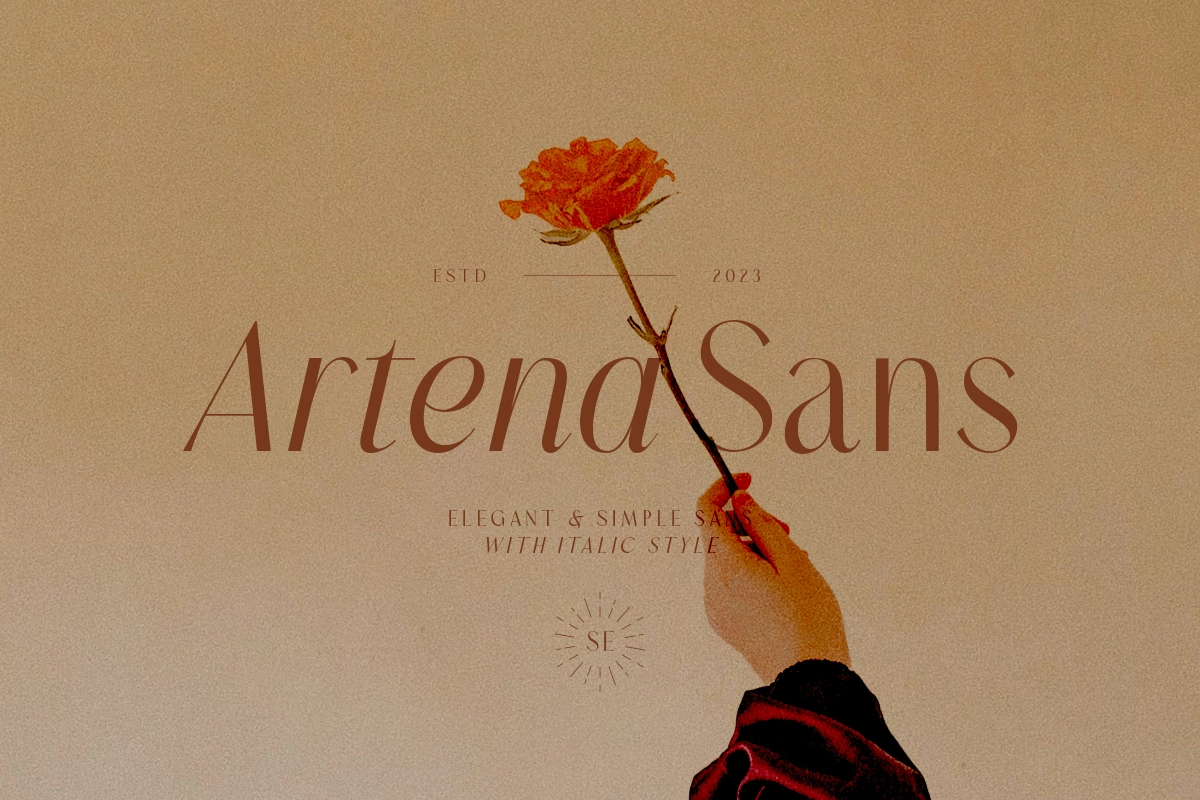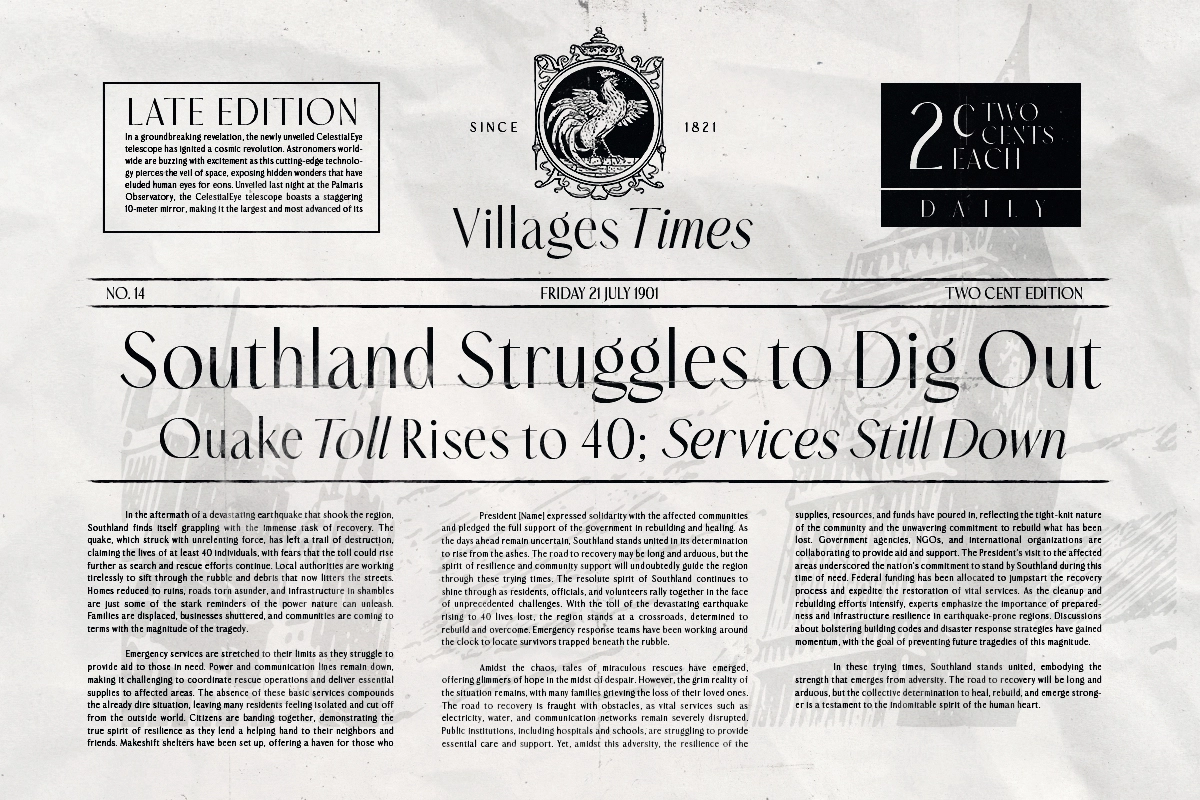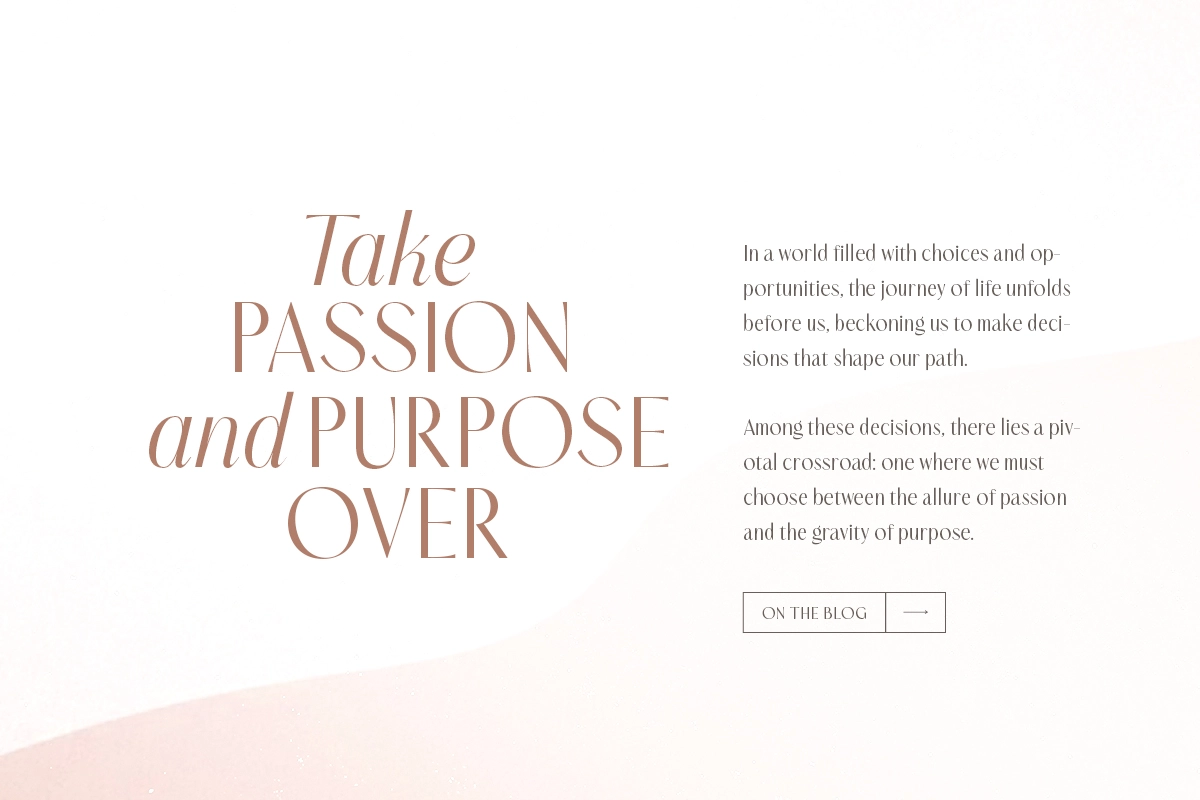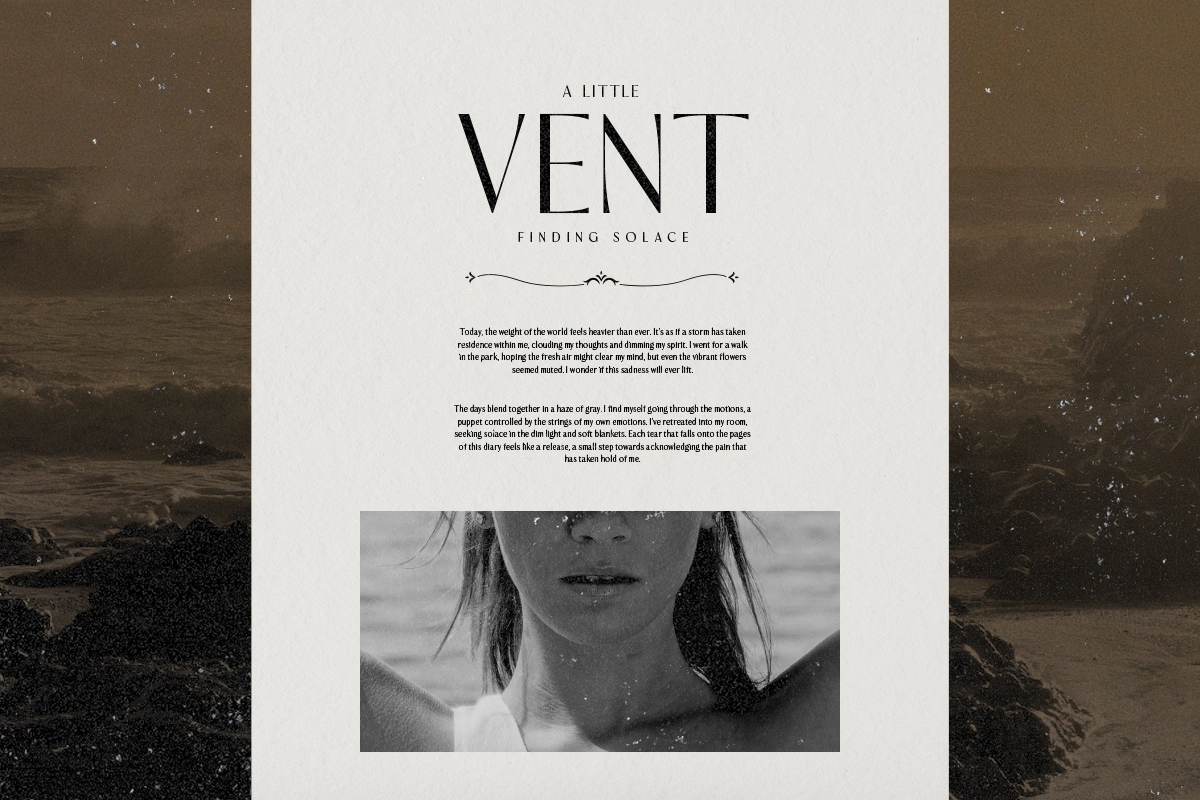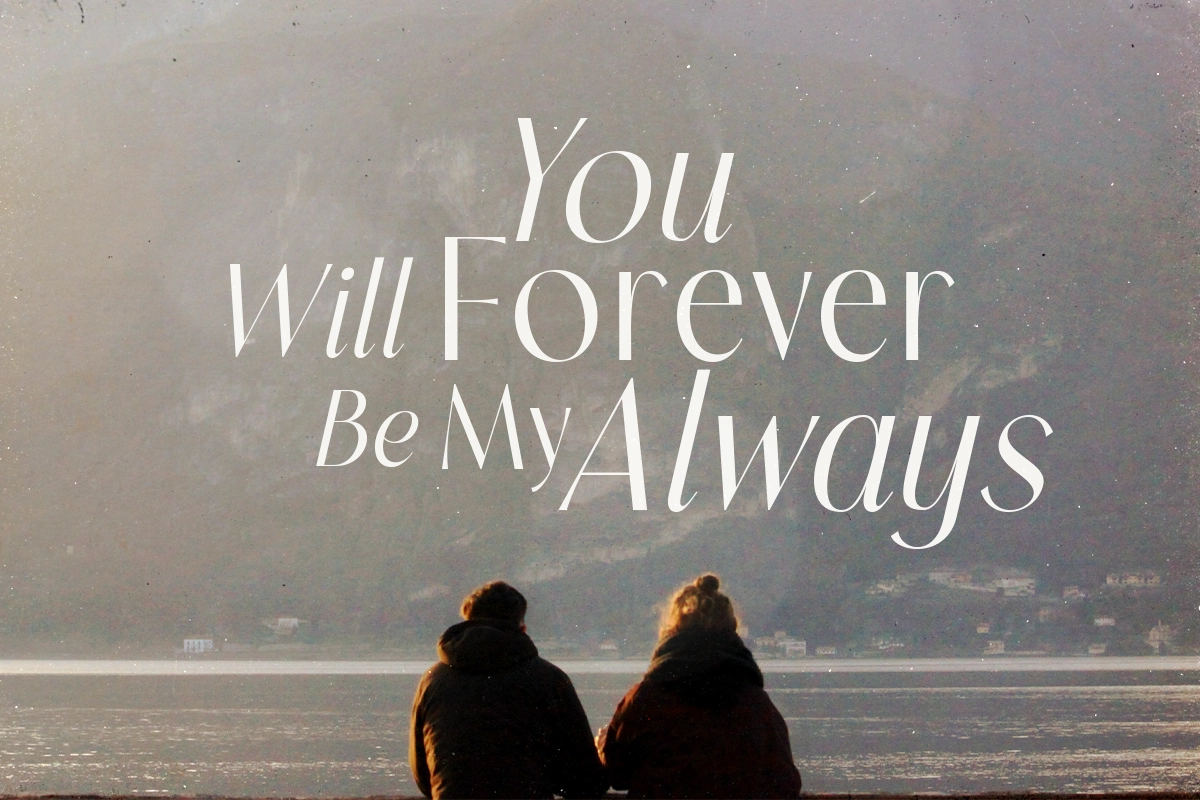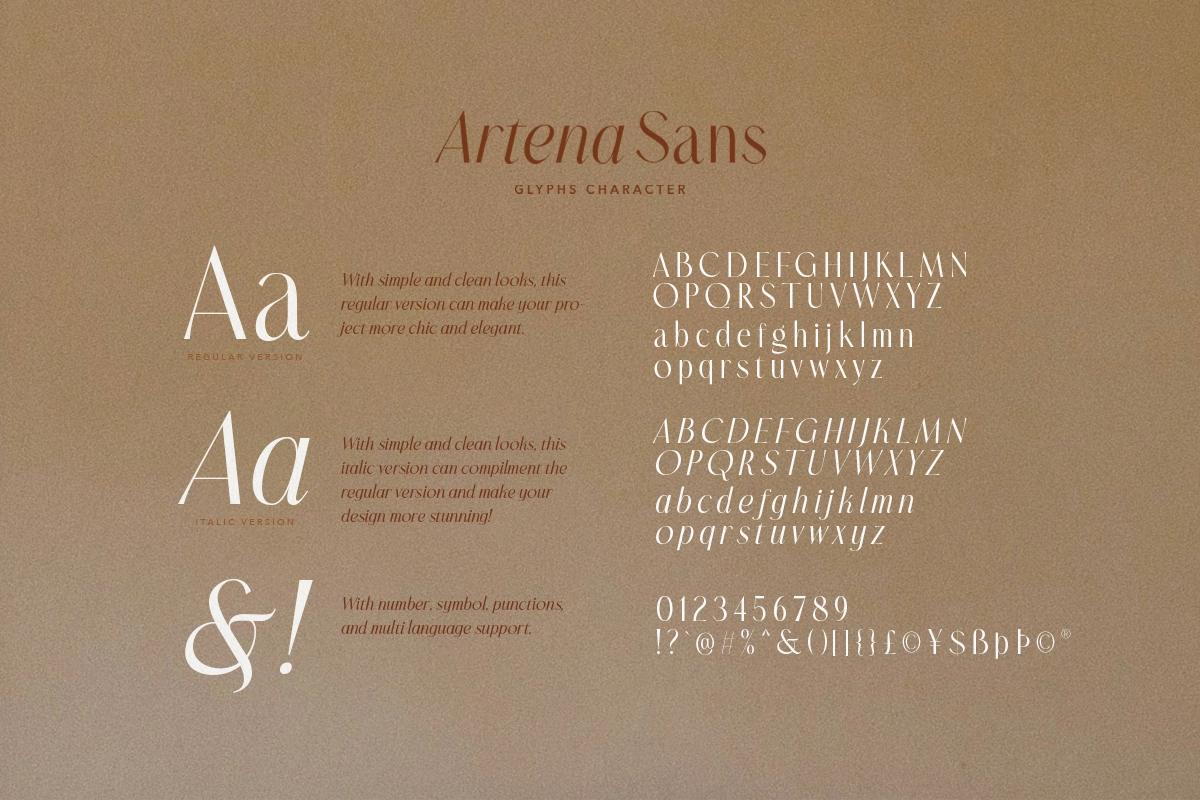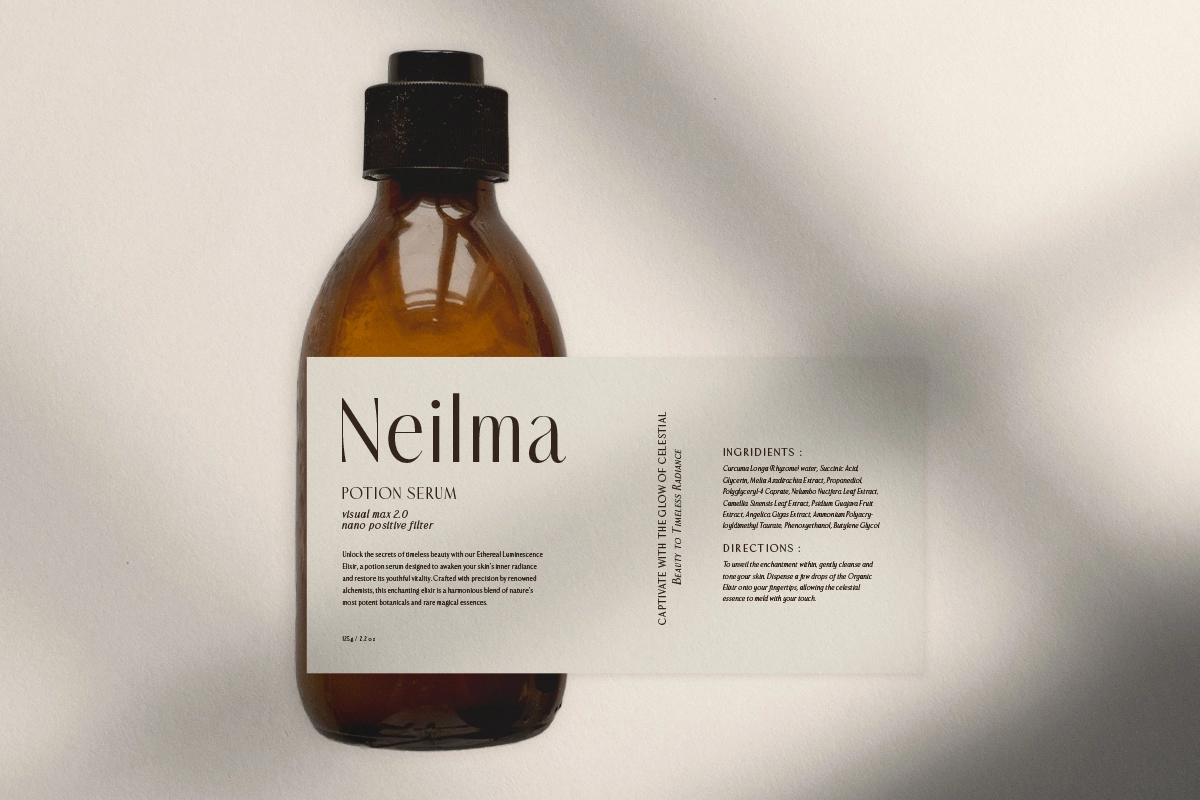
Artena - Chic Sans with Italic
Artena is an elegant and simple sans serif with minimalist look that will make your project more chic and modern! With italic version that you can use as a complimentary! You can use this font as a complement of your script collections or use this font as a stand alone font for several purposes such as a wedding invitations, logo, quotes, or even your own branding! This fonts support Multi Language!